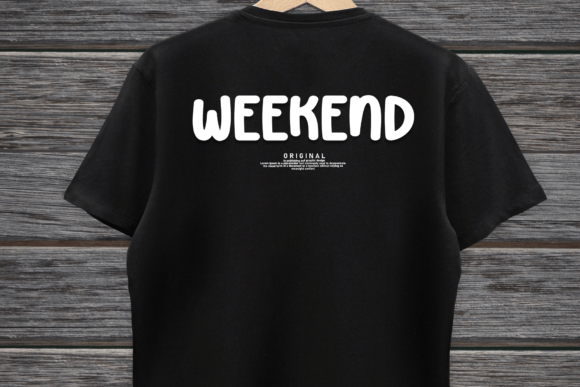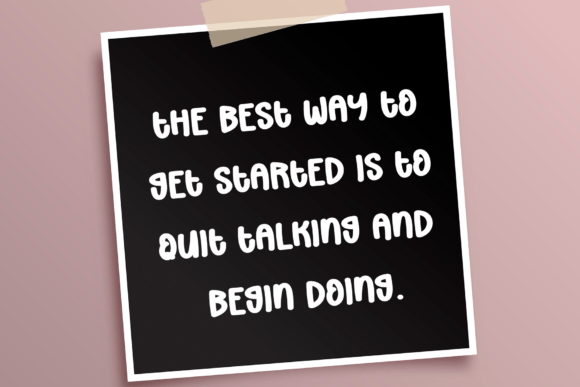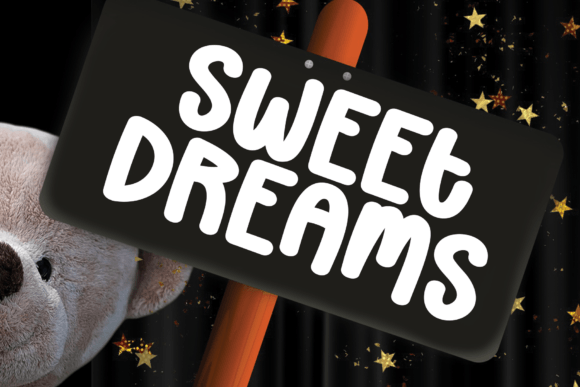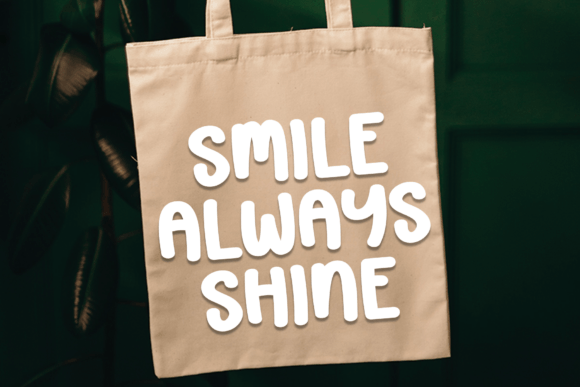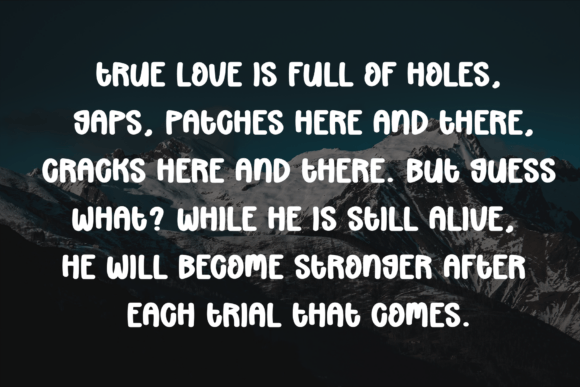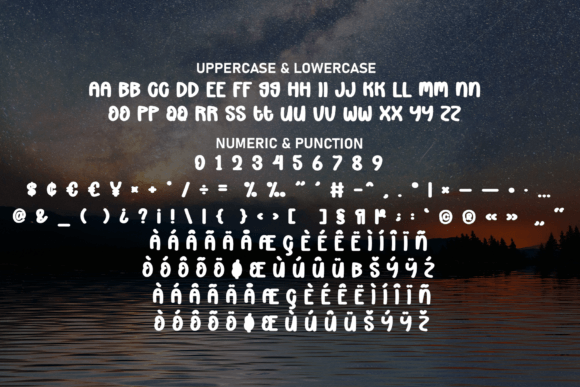
Introduction to River Stars Font
Have you ever found yourself in a creative rut, staring at a blank page, desperate for inspiration? That’s where the magic of typography comes in – and for designers, a new font can be just the spark they need to bring a project to life. For us, that spark is the River Stars Font, a bold and playful typeface that’s sure to make your designs shine.
With its whimsical star accents and rounded, friendly letters, River Stars Font is the perfect design resource for creatives who want to add a touch of charm and fun to their projects. Whether you’re working on a high-quality poster, logo, or kids’ design, this font is sure to deliver – and with its transparent background, you can rest assured that your design will be crisp and clear.
Key Features of River Stars Font
- High-quality design for creative projects, offering a unique and elegant touch.
- Transparent background, making it easy to overlay on any image or design element.
- Designed to be highly scalable, with a resolution of 300 DPI, suitable for printing and digital use.
- Part of a larger font family, offering a range of styles and weights to suit various design needs.
- Perfect for use in logos, branding, and other creative projects where a touch of sophistication is required.
Honest Review: River Stars Font
I recently had the chance to work with the River Stars Font, and I must say it’s a great addition to any designer’s toolkit. As a creative project enthusiast, I appreciate fonts that can add a touch of elegance and sophistication to my designs. This font does just that, with its high quality design and clean lines.
One of the standout features of the River Stars Font is its transparent background, which makes it easy to use in a variety of design contexts. Whether I’m working on a logo, branding, or digital product, this font is a great choice.
- High quality design and clean lines
- Great for creative projects, logos, and branding
What could be improved:
- ⚠️ Limited character set (may require additional fonts for certain languages)
- ⚠️ Not ideal for large blocks of text (may be difficult to read)
Tips for Getting the Most Out of River Stars Font
Here are some tips for getting the most out of the River Stars Font:
- Use it in combination with other fonts for a unique look.
- Experiment with different font sizes and styles.
- Use it in creative projects such as infographics, posters, and brochures.
The River Stars Font is commonly used in:
- Infographics and data visualizations.
- Posters and flyers for events and promotions.
- Brochures and catalogs for businesses and products.